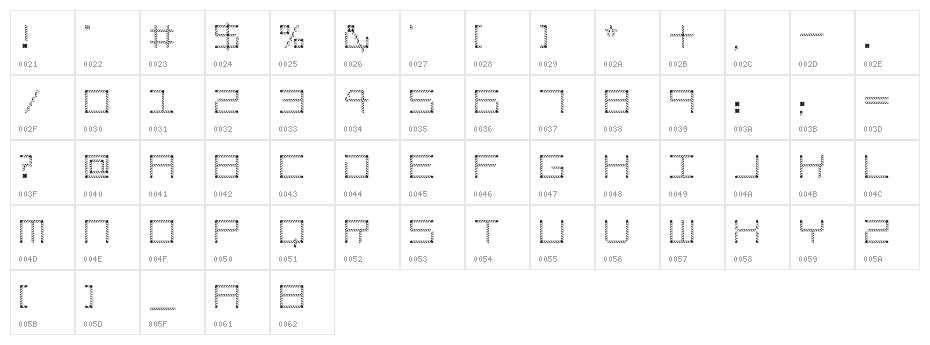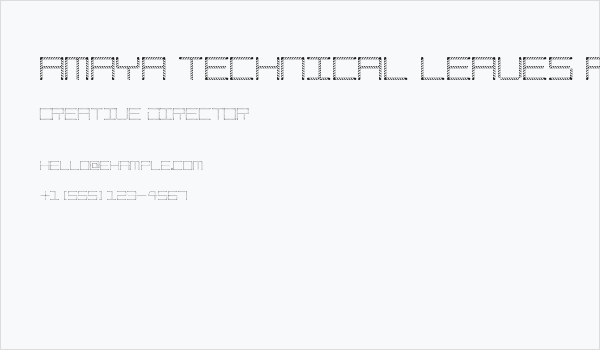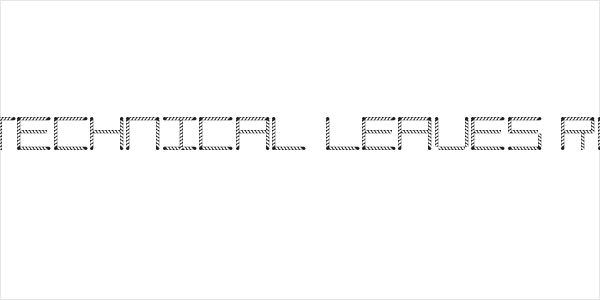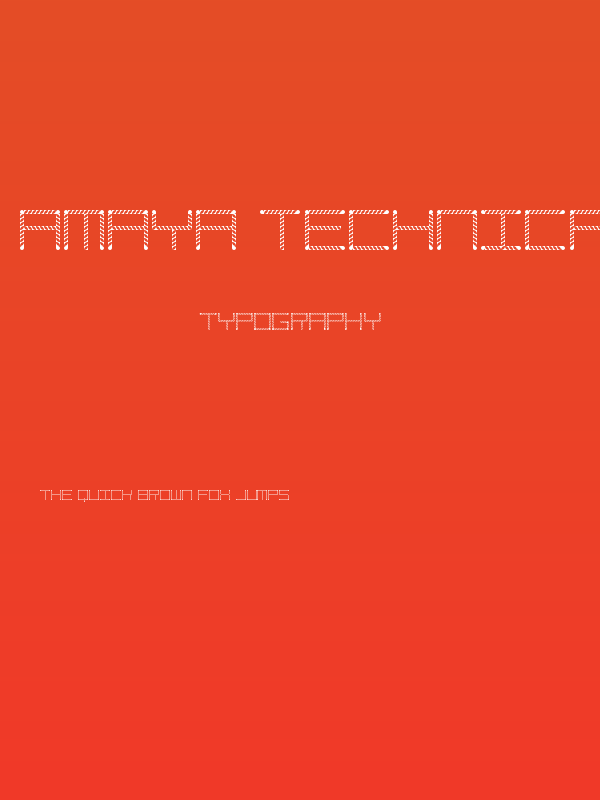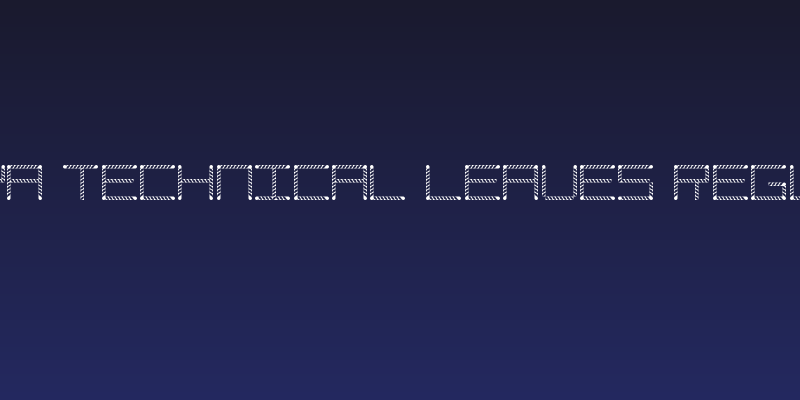
Amaya Technical Leaves Regular Font
Amaya Technical Leaves Regular Description
This font features a unique, technical design with a pattern resembling leaves or diagonal stripes within each character. The characters are constructed with a geometric, grid-like precision, giving it a modern and structured appearance. The uppercase and lowercase letters maintain a consistent style, with clean lines and sharp angles. Numbers and special characters follow the same design principles, ensuring uniformity across all glyphs. The font's distinct pattern adds a decorative element, making it stand out in various design contexts.
| Proposed Projects | Ideal for technical documents, futuristic designs, branding, and projects requiring a modern, decorative touch. |